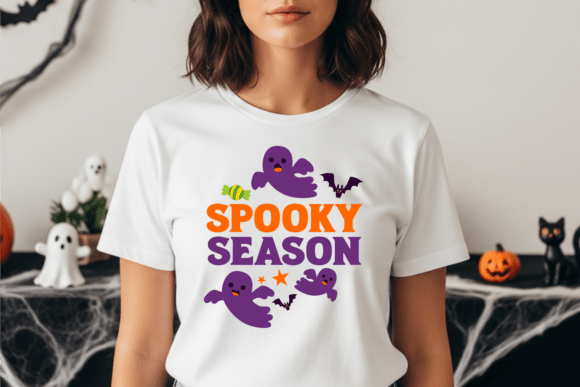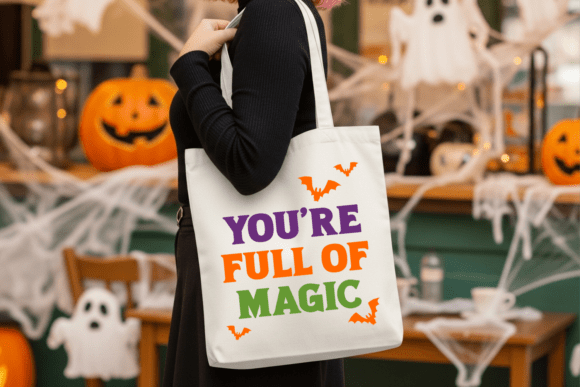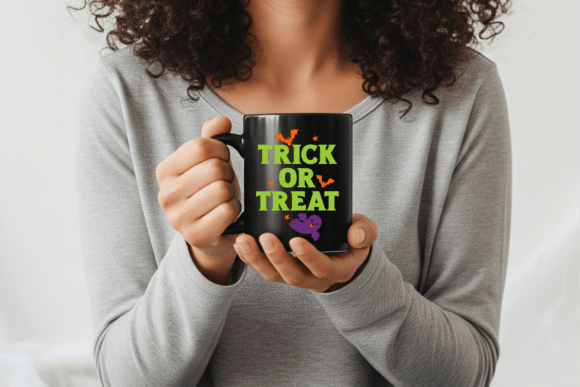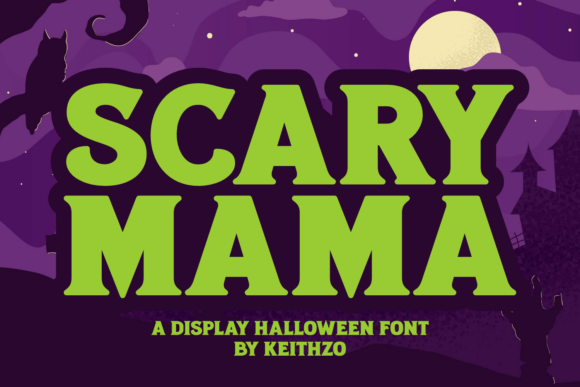
Introduction to Scary Mama Font
Introducing Scary Mama – a display serif font meticulously crafted for Halloween-inspired creations.
This extraordinary typeface boasts a captivating charm that dramatically enhances designs for t-shirts, posters, mugs, tumblers, hoodies, or advertisements Impeccably suited to Halloween cards, Scary Mama effortlessly infuses a thrilling and spooky essence into your creations.